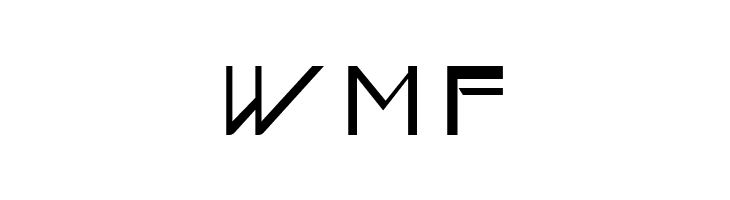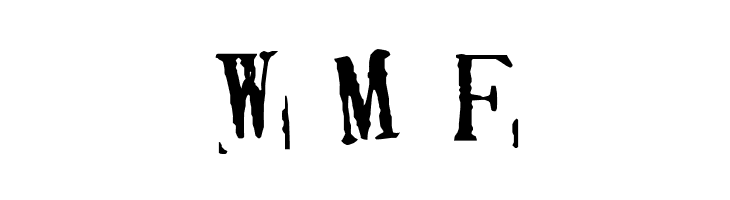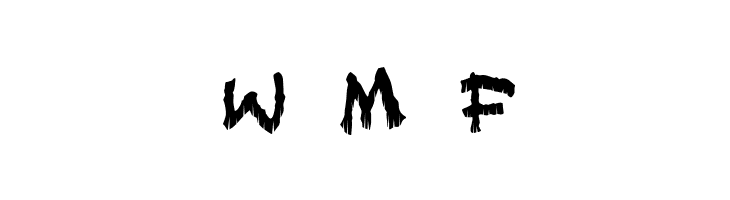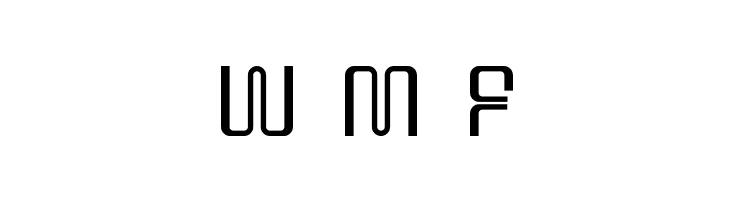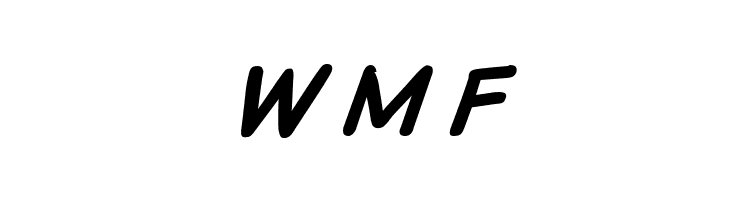
A bold, distressed font with a grunge, film strip aesthetic.
A playful, handwritten font with dynamic strokes and a casual flow.
A bold, hand-drawn font with a sketch-like, edgy appearance.
A bold, brush-like font with a dynamic and edgy appearance.
A bold, distressed font with a hand-drawn, brush-like texture.
A bold, distressed font with a rugged, grunge-like appearance.
A bold, geometric font with angular lines and a modern aesthetic.
A bold, textured font with a grunge-like, three-dimensional appearance.
A bold, textured font with a starry pattern and playful style.
An intricate, nature-inspired decorative font with vine-like embellishments.
A playful, rounded font with heart-shaped accents and a whimsical style.
A playful, rounded font with a whimsical and friendly style.
A playful, bold, and italic handwritten font with a whimsical style.
A playful, handwritten font with italicized, heart-accented characters.
A bold, halftone-patterned sans-serif font with a modern, textured appearance.
A classic serif font with high contrast and elegant serifs.
A bold, hand-drawn font with a playful, sketch-like appearance.
A casual, handwritten font with a playful and approachable style.
A bold, angular font with a runic, tribal aesthetic and distressed texture.
A bold, angular font with a medieval, runic style.
A bold, italicized font with sharp, angular edges and a futuristic look.
A playful, bold font with a bubbly, cartoonish style.
A playful, dynamic handwritten font with bold, irregular strokes.
A playful, dynamic handwritten font with expressive strokes and a lively aesthetic.
A modern, geometric font with clean lines and a futuristic aesthetic.
A modern, geometric font with bold, rounded edges and a sleek appearance.
A modern, geometric font with clean lines and a minimalist design.
A modern, geometric font with bold, clean lines and a futuristic aesthetic.
A modern, geometric font with clean lines and a minimalist style.
A bold, playful font with rounded, bubble-like characters.
A bold, angular font with a geometric and tribal-inspired design.